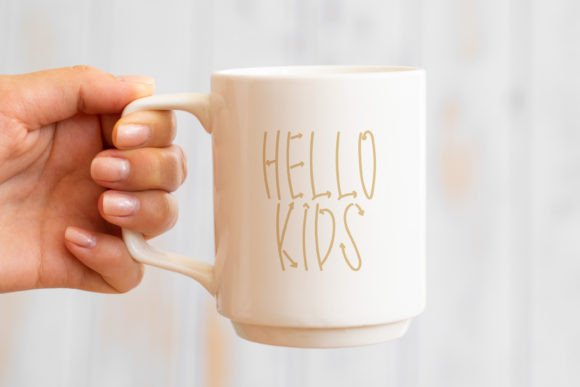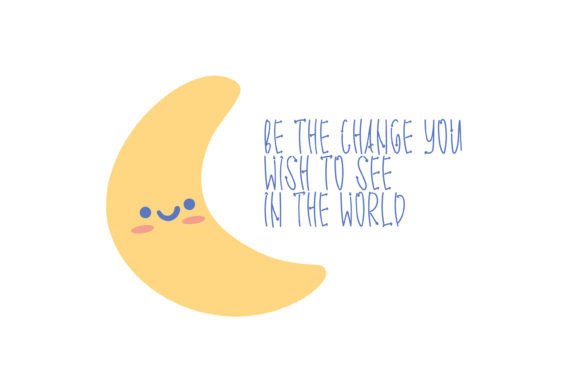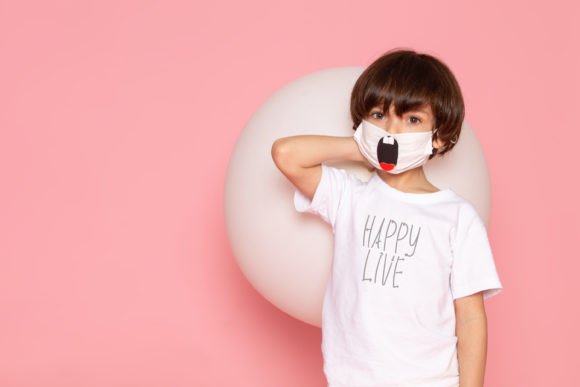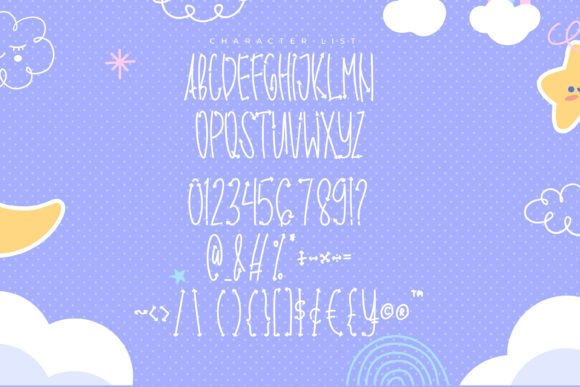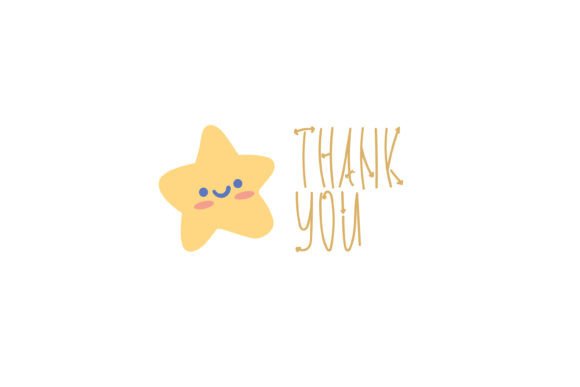
Introduction to Every Thanks Font
Every Thanks is a playful and cute display font.
It embodies trendiness and authenticity and is the perfect choice for any children activity or school project .